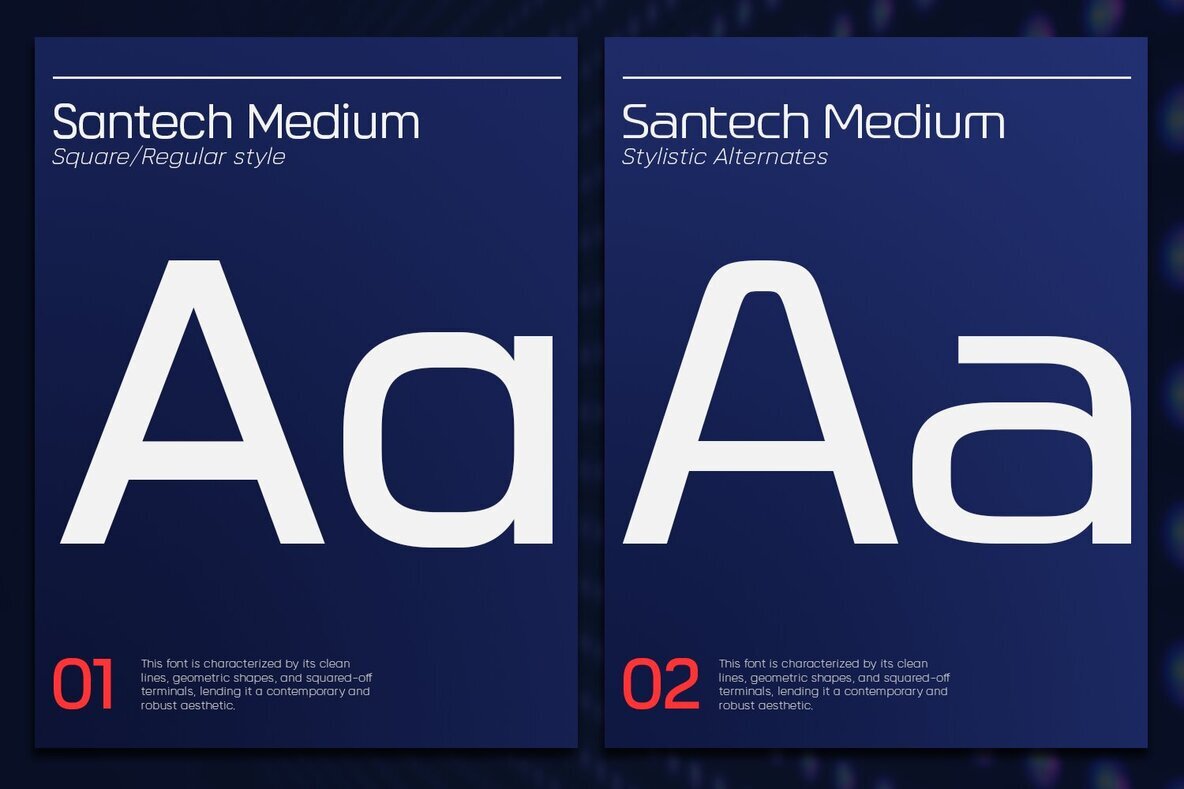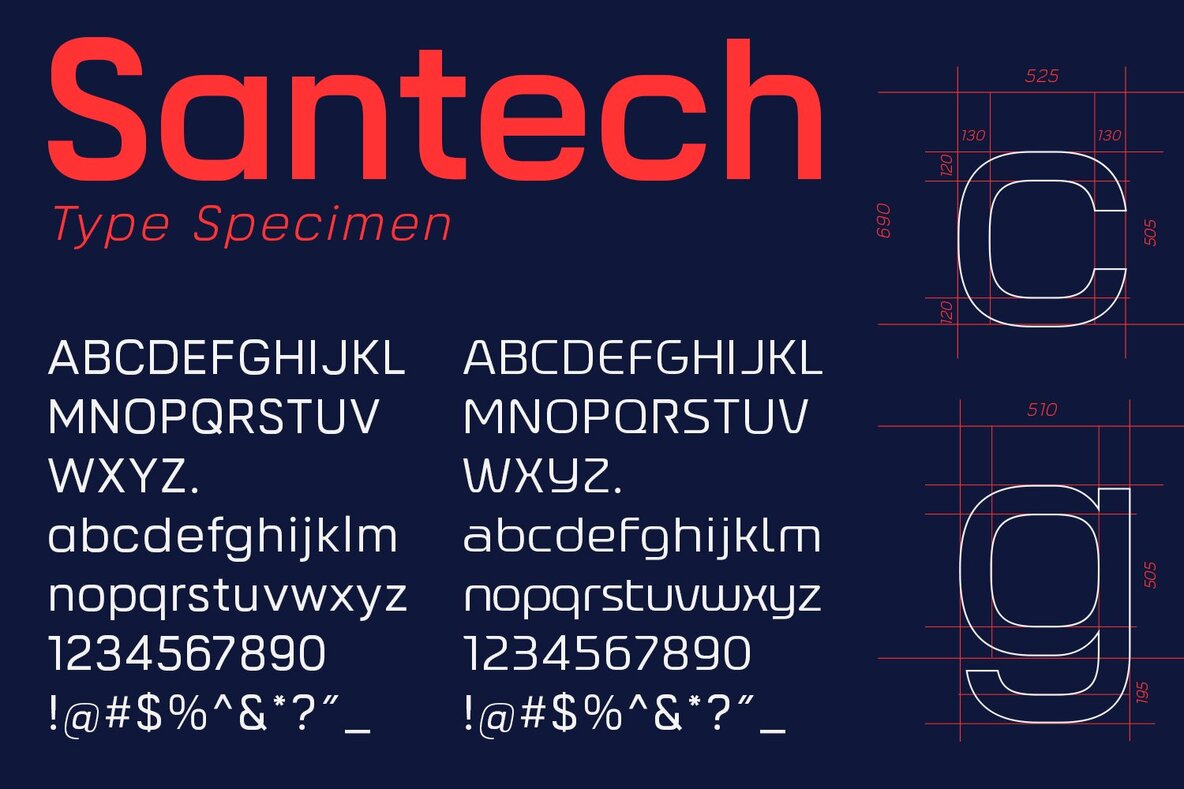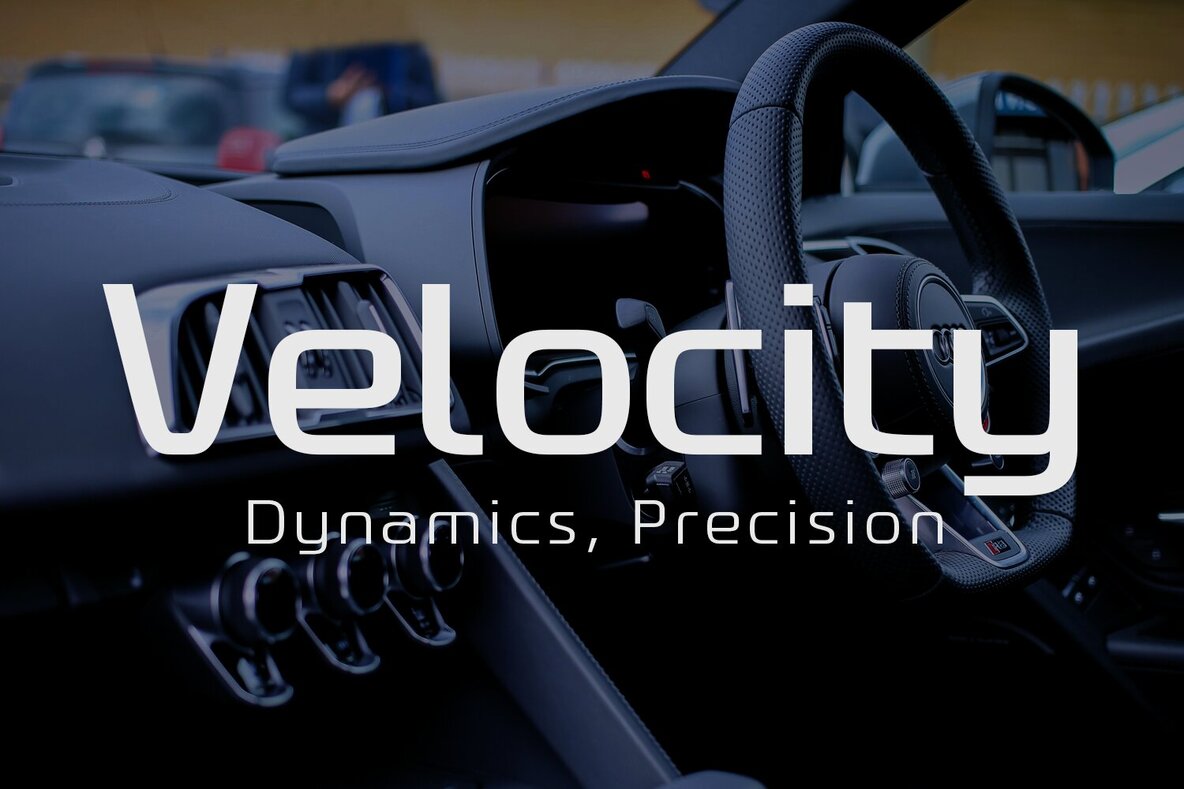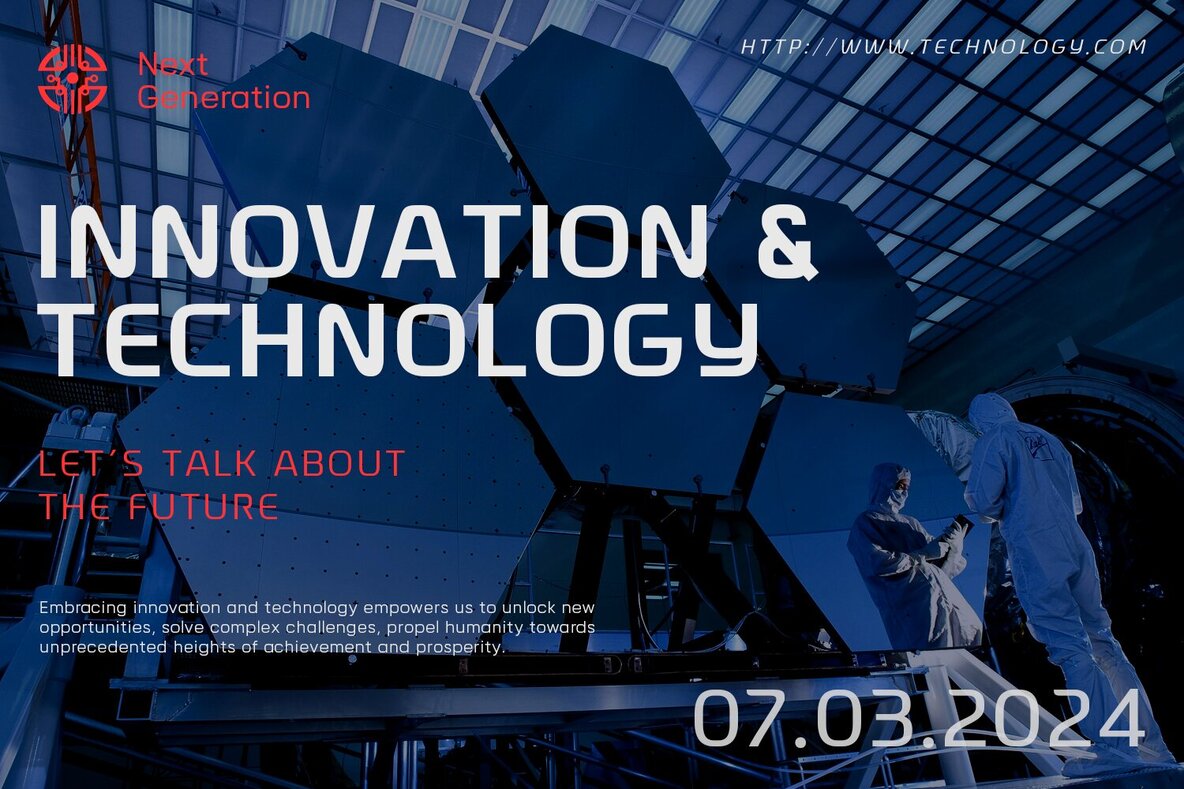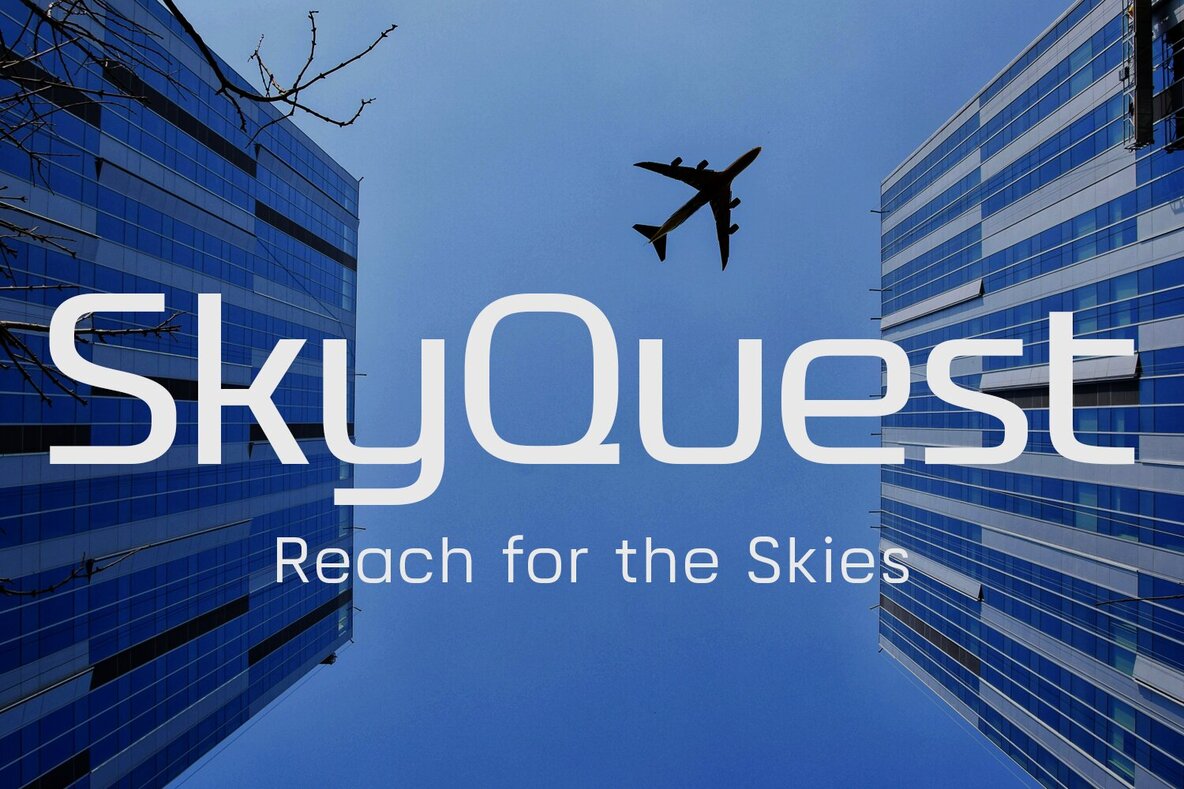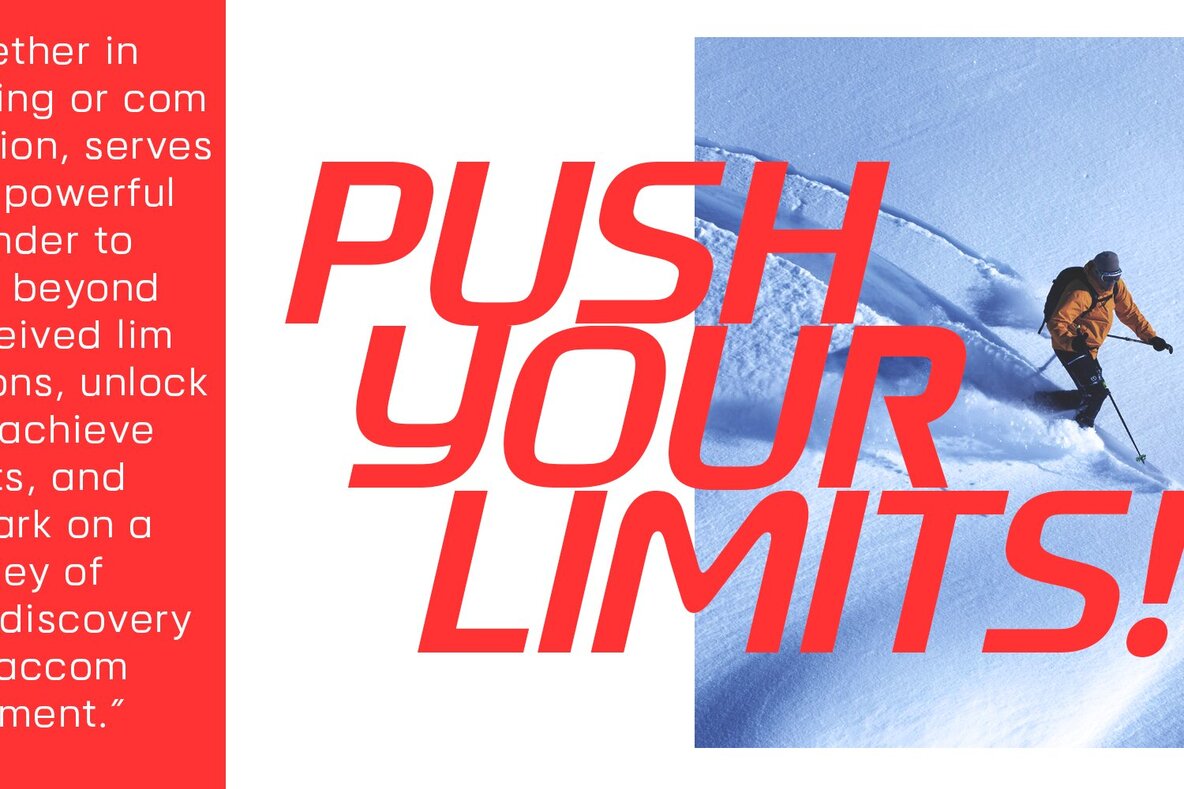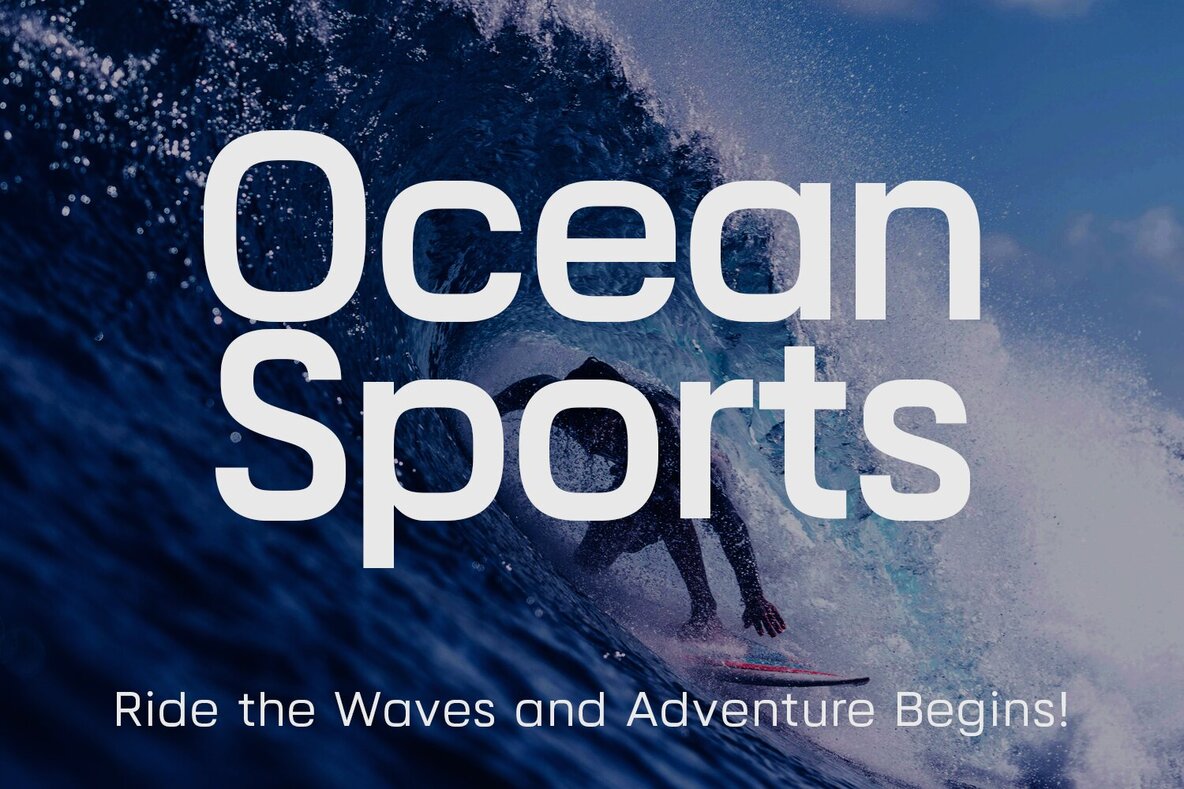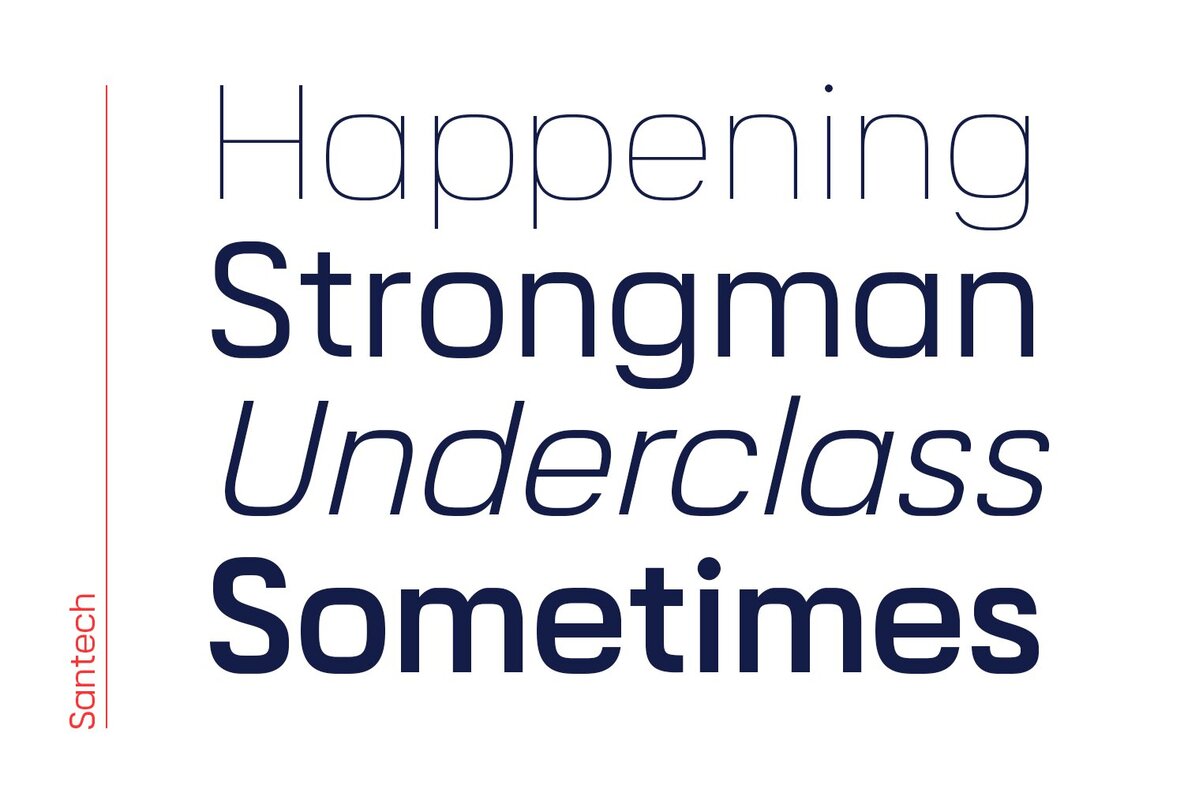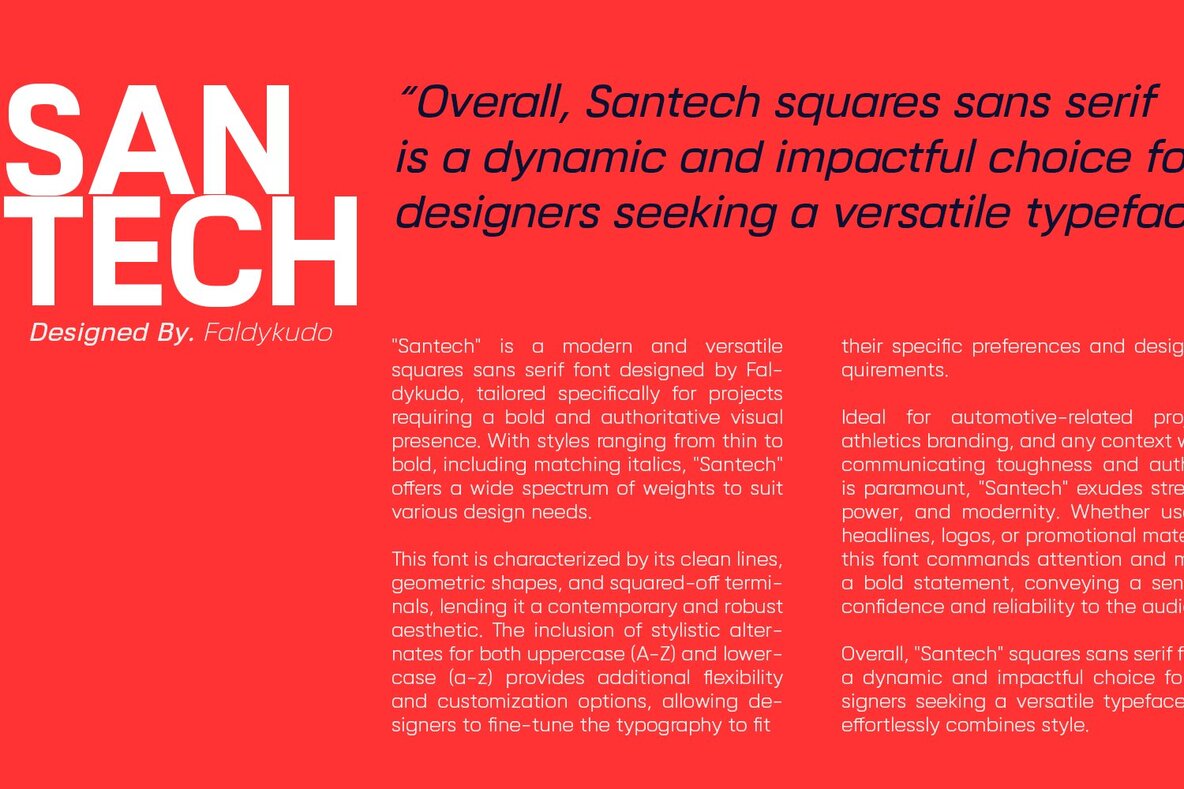
Santech Font
"Santech" is a modern and versatile squares sans serif font designed by Faldykudo, tailored specifically for projects requiring a bold and authoritative visual presence. With 14 styles ranging from thin to bold, including matching italics, "Santech" offers a wide spectrum of weights to suit various design needs. This font is characterized by its clean lines, geometric shapes, and squared-off terminals, lending it a contemporary and robust aesthetic. The inclusion of stylistic alternates for both uppercase (A-Z) and lowercase (a-z) provides additional flexibility and customization options, allowing designers to fine-tune the typography to fit their specific preferences and design requirements. Ideal for automotive-related projects, athletics branding, and any context where communicating toughness and authority is paramount, "Santech" exudes strength, power, and modernity. Whether used in headlines, logos, or promotional materials, this font commands attention and makes a bold statement, conveying a sense of confidence and reliability to the audience. Overall, "Santech" squares sans serif font is a dynamic and impactful choice for designers seeking a versatile typeface that effortlessly combines style with functionality, making it well-suited for a wide range of design applications in the automotive, athletics, and authoritative communication realms.